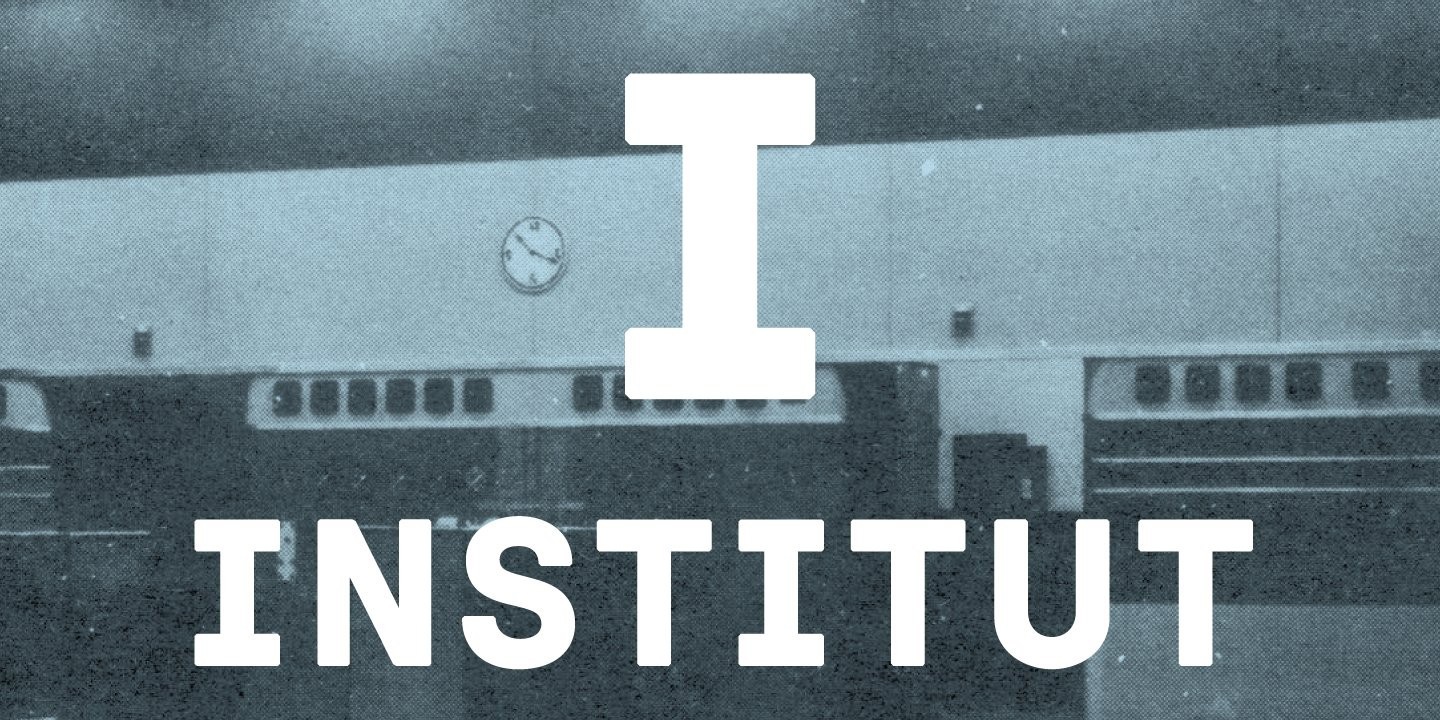
Institut Font
Institut Font is perfect for various design applications including research institution branding, scientific organization communications, academic research center signage, medical institute materials, think tank publications, professional institute identities, scientific conference presentations, research facility displays, institutional government communications, and scholarly foundation brand materials. This authoritative typeface excels in projects requiring institutional credibility and scientific sophistication that captures the rigorous methodology and professional excellence of research institutions and scientific organizations.
What makes Institut Font so exciting is its commanding embodiment of institutional authority and scientific precision through letterforms that suggest the methodical rigor and professional excellence that defines serious research institutions and scientific organizations. The font features clean geometric construction that mirrors laboratory precision, authoritative proportions that communicate institutional credibility and scientific reliability, and distinctive character details that reflect the attention to detail and systematic approach essential for serious research and institutional excellence. Its distinctive institutional character and scientific appeal make it perfect for research organizations seeking to communicate authority, precision, and the kind of professional credibility that attracts serious researchers and institutional partnerships.
Institut Font family includes comprehensive weight options and institutional variations that enhance its versatility for different research applications. Each style maintains the font's signature authoritative character while providing clear hierarchy options for complex scientific communications. The family also features scientific symbols, research decorative elements, and institutional ornaments that can be combined with the letterforms to create cohesive research organization design systems.
Whether you're developing research brands, scientific communications, or institutional projects, Institut Font Free Download provides authoritative typography that establishes immediate scientific credibility and celebrates the transformative power of rigorous research and institutional excellence. This typeface transforms standard communications into professional statements that reflect scientific competence and institutional authority. The font's institutional appeal makes it particularly effective for research organizations, scientific institutions, and academic facilities targeting researchers and professionals who value methodical excellence and institutional credibility.
Institut Font stands out through its intelligent balance of scientific authority with contemporary accessibility that ensures broad appeal while maintaining professional credibility. Its precisely calibrated institutional proportions and scientific details guarantee exceptional performance in demanding research environments, while its authoritative character adds credibility without overwhelming scientific content. From comprehensive institutional branding to scientific publication design, this font provides designers with tools to create communications that celebrate research excellence and demonstrate sophisticated understanding of institutional design through clean, scientifically-inspired typography that builds trust and authority.